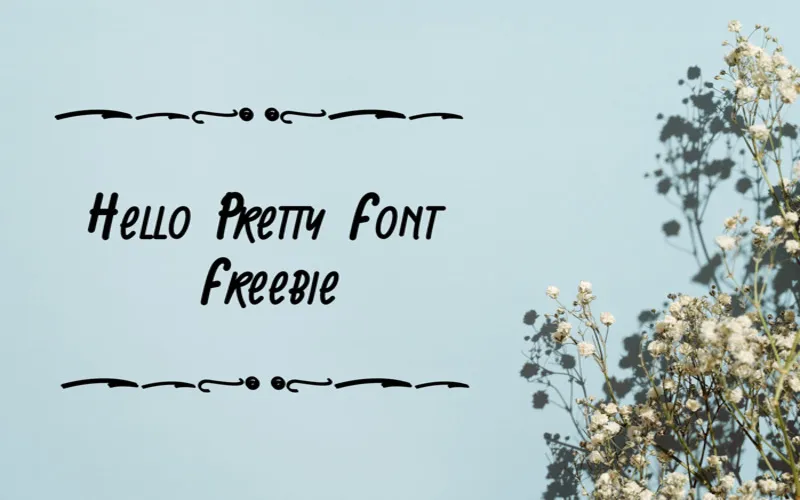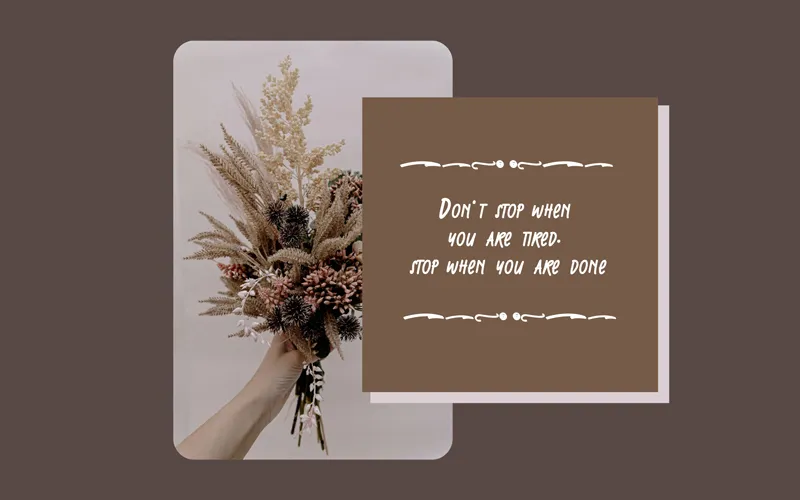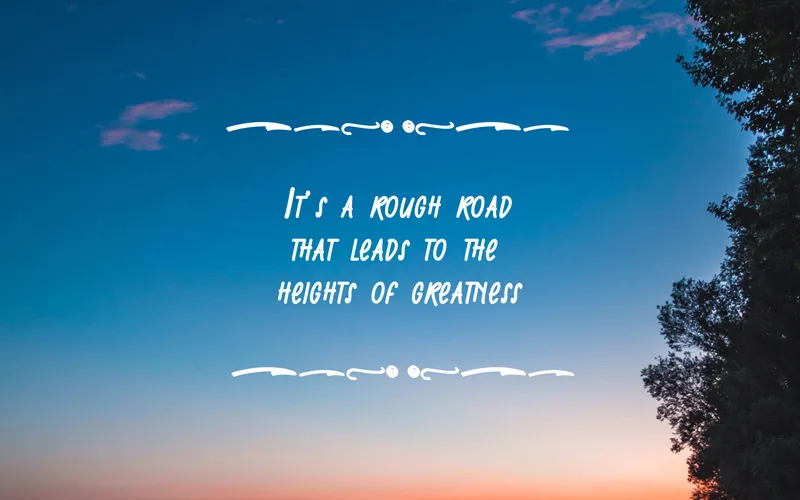
Add a touch of elegance and playfulness to your designs with –
Hello Pretty Font
A stunning and versatile typeface that will elevate any project to the next level!
With its elegant and modern design, Hello Pretty is perfect for a wide range of uses, from branding and marketing to invitations and stationery.
Features:
- Elegant & playful handwritten style
- Modern, versatile aesthetic
- Smooth curves & stylish glyphs
This Hello Pretty Font is Ideal for:
- Branding & logos
- Marketing materials
- Invitations & stationery
- Social media graphics
- Packaging design
- Website headers & banners
- Font type: Script / Handwritten
A Preview of Hello Pretty Font: